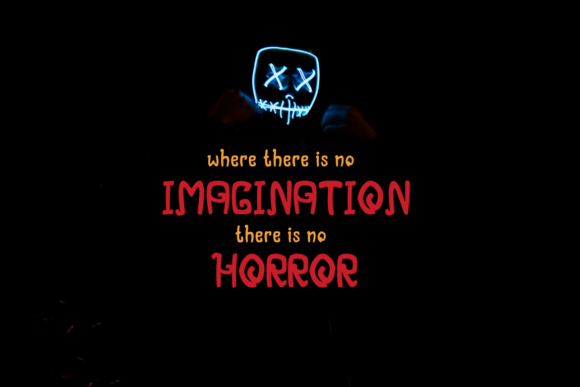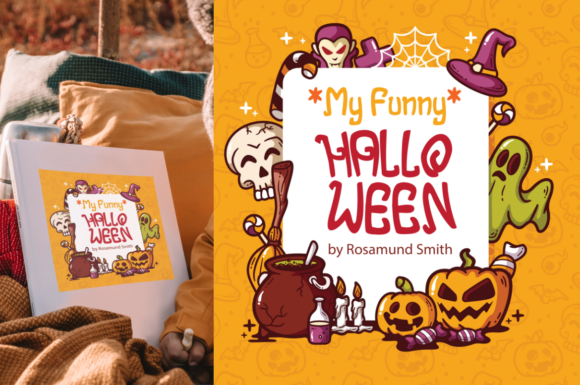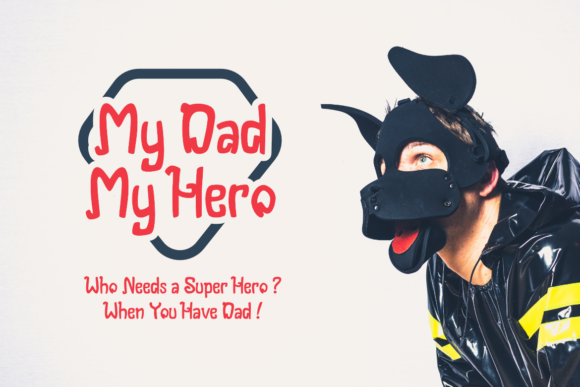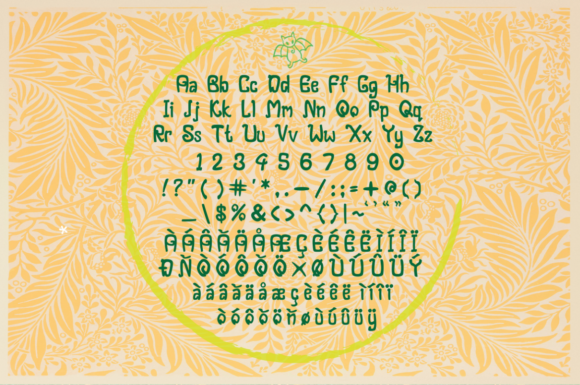
Introduction to Hello Wein Font
Hello Wein is a fun and spooky display font with a unique feel.
Get inspired by its weird and kooky feel .
Key Features of Hello Wein Font
Why Choose Hello Wein Font?